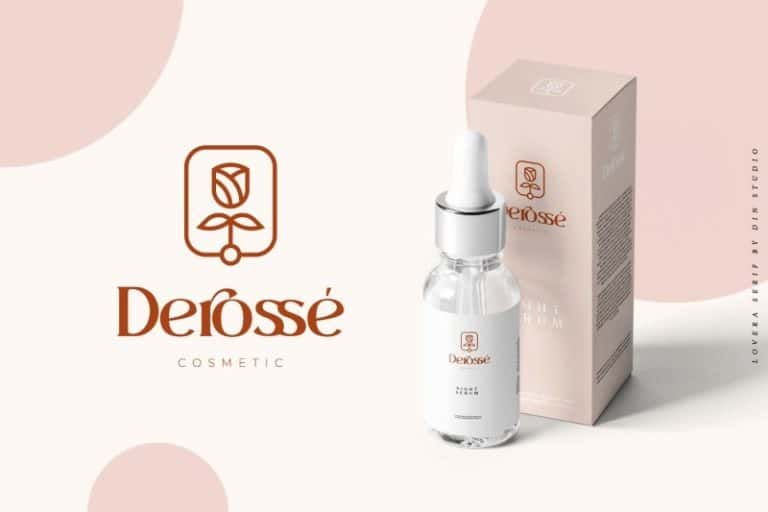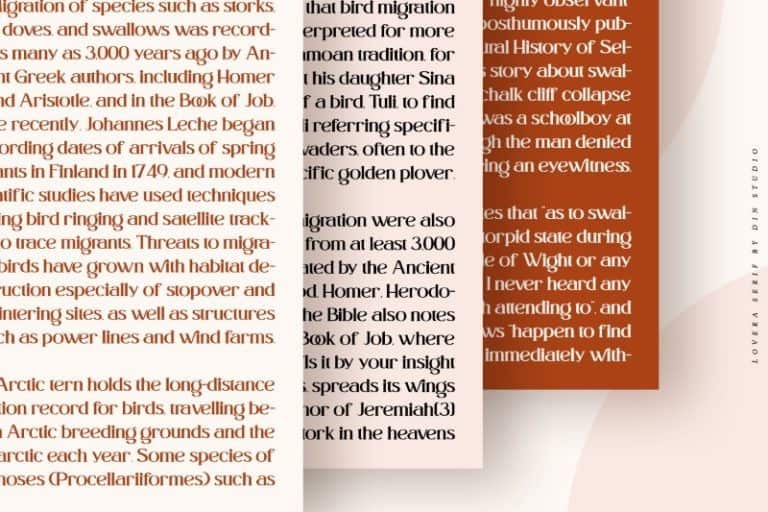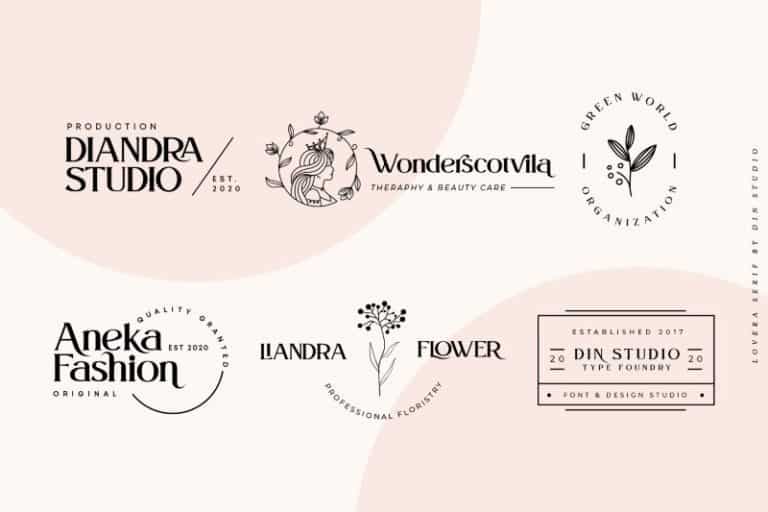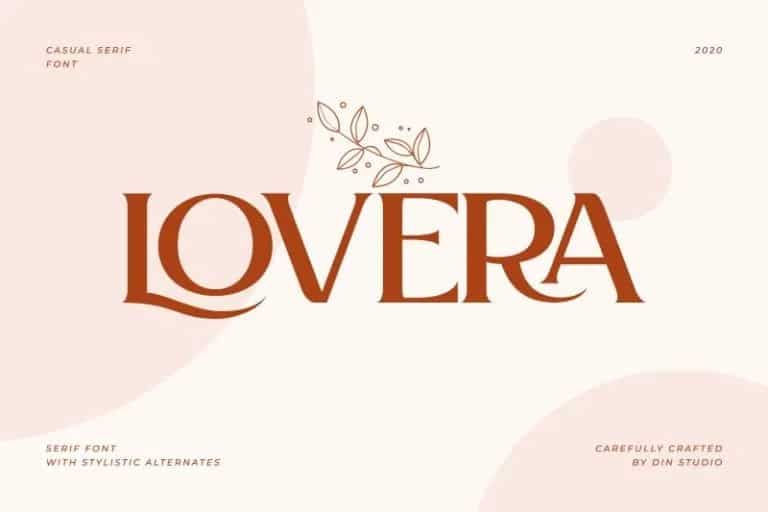
Lovera Serif Font
Since the beginning, “Lovera Serif Font” has been inspired by the shape of the letters displayed on the cover of fairy tale books or animated film covers. It’s designed and shared by Din Studio. This typeface is elegant serif font. Made for any professional project branding. It is the best for branding, printing, wedding and quotes. Every letter has a unique and beautiful touch.